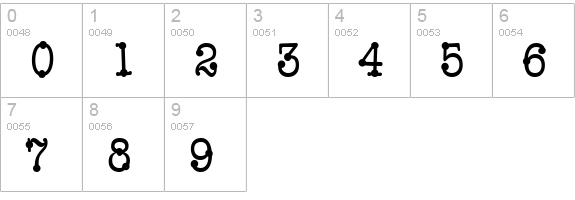
Accent Dot Writer font is a stylish and modern typeface that brings a touch of sophistication to any design project. This unique font features elegant accents and dots that add a creative flair to your text. Whether you're designing a logo, branding materials, or any other creative project, Accent Dot Writer font is sure to make a statement. The best part? This font is completely free to download at FontsMarket.com. With just a few clicks, you can add this beautiful typeface to your font collection and start using it in your designs right away. Don't miss out on the opportunity to enhance your projects with the distinctive style of Accent Dot Writer font. Download it today and let your creativity shine!